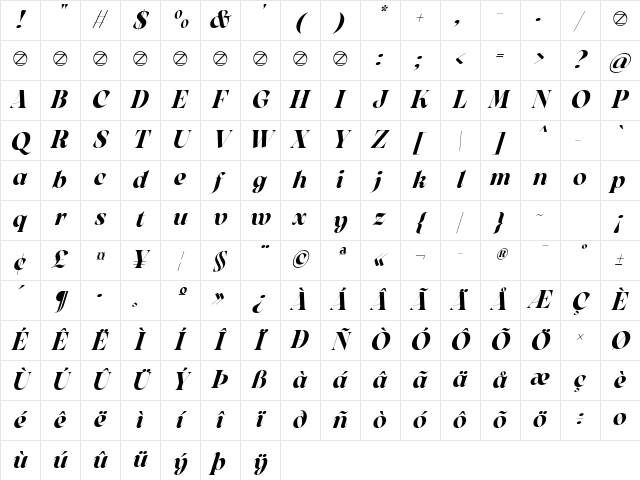
Arsenica Trial Demibold Italic Free Font
Arsenica Trial Demibold Italic
Style: Demibold Italic
Foundry: zetafonts
Designer: Francesco Canovaro
Design Context for Arsenica Trial
Arsenica Trial is a composed and adaptable typeface that performs quietly and consistently across a wide range of design contexts. The slanted form adds forward momentum and visual energy. Its bold stroke weight gives it real presence on the page.